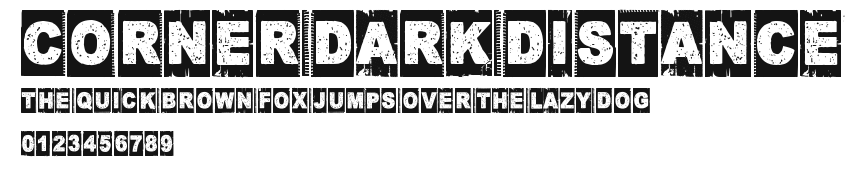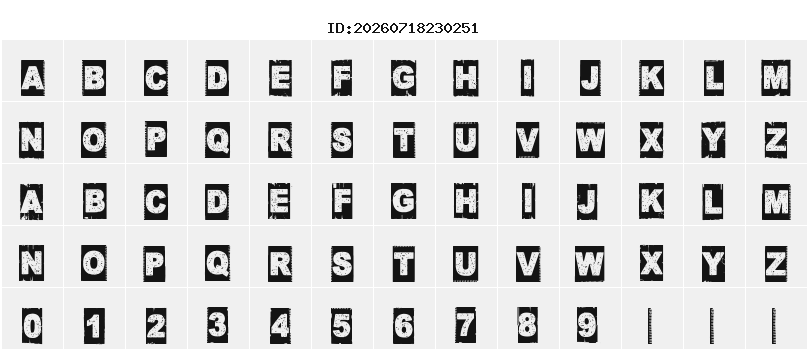
• Font Name: Corner Dark Distance
• Full Font Name: Corner Dark Distance
• Version: Version 1.00 November 23, 2015, initial release
• Designer: junkohanhero
About Corner Dark Distance.ttf
Corner Dark Distance.ttf is a modern, elegant sans-serif font designed for ultimate readability and visual harmony. Perfect for branding, headlines, web design, and print materials.